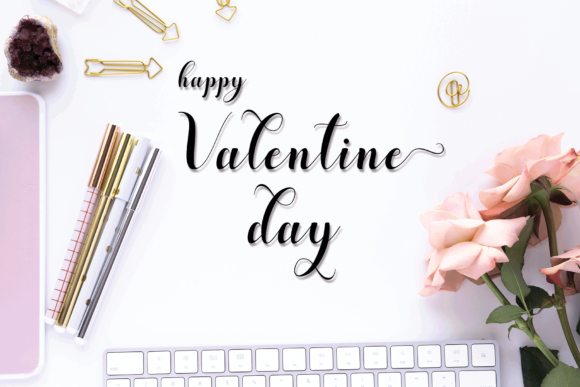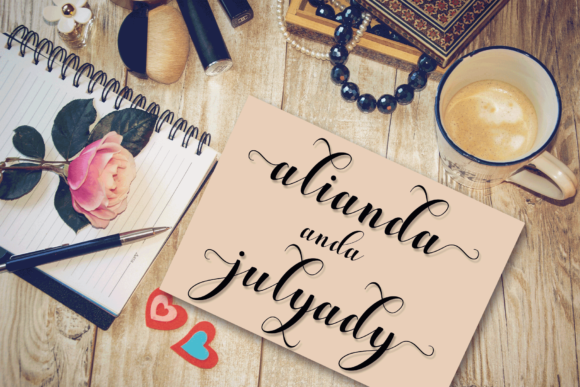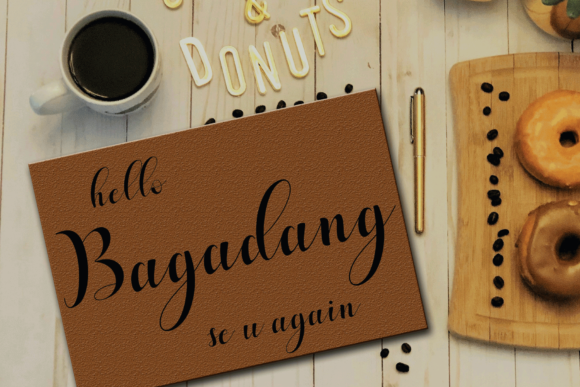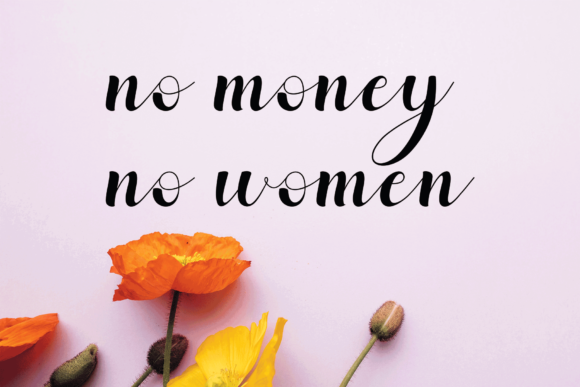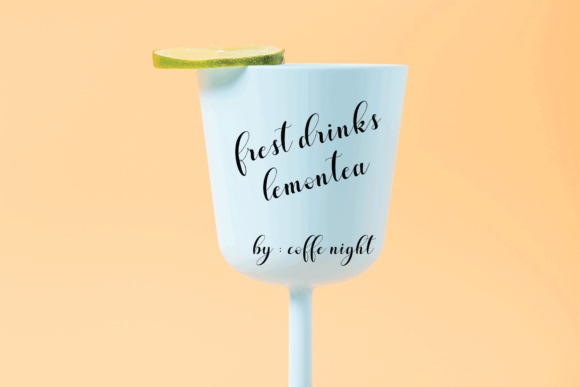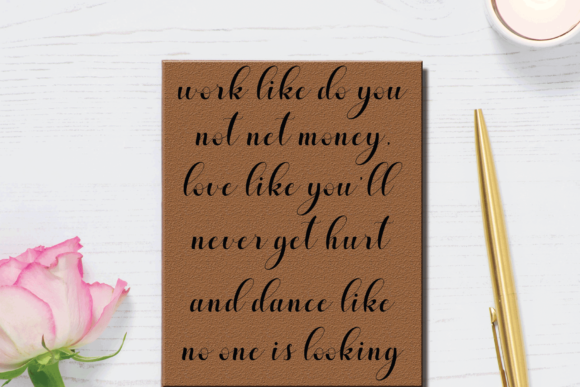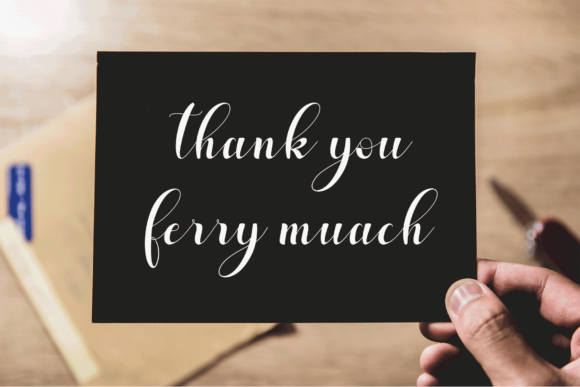
Steady Font
About Steady Font
Steady is sweet and romantic, but also incredibly elegant. This versatile font has a wide range of applications ranging from logos and posters to wedding invitations and greeting cards and is guaranteed to add an authentic touch to your next design.
This font is PUA encoded which means you can access all of the gorgeous glyphs and swashes with ease! It also features a wealth of special features including alternate glyphs and ligatures.